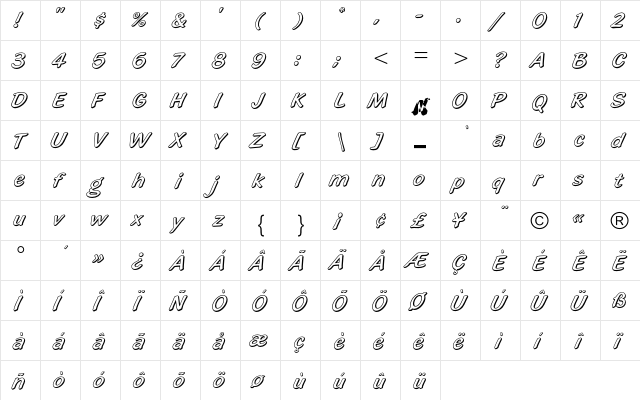
Highlight LT Regular Font Preview
Highlight LT Regular
Design Context for Highlight LT Typeface
Highlight LT is a composed and adaptable typeface that performs quietly and consistently across a wide range of design contexts. Its slender proportions lend an understated elegance to any composition.